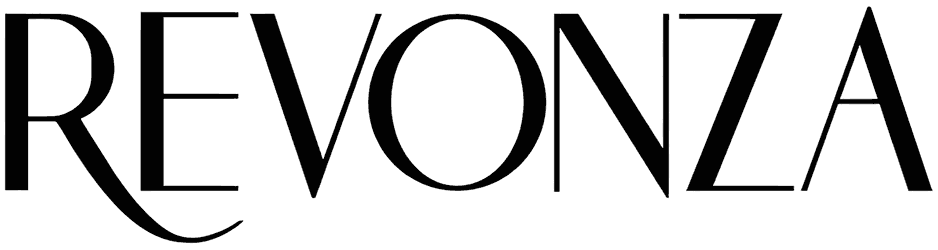
Revonza Font
Revonza is a great choice for any project that needs a simple, modern look. The font’s clean lines and modern feel make it a great choice.
REVONZA includes a complete characters ( Uppercase, lowercase, numeral, punctuation and alternates).
REVONZA Regular Sans – high contrast sans font containing uppercase, lowercase characters, numerals, punctuation and alternates. Creates a perfect pairing contrast with REVONZA Script fonts
REVONZA Sans Italic – high contrast sans font containing uppercase, lowercase characters, numerals, punctuation and alternates.
REVONZA Script – An elegant script font Contains upper & lowercase characters, numerals and a large range of punctuation